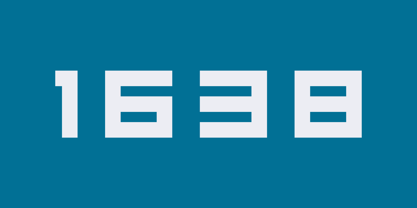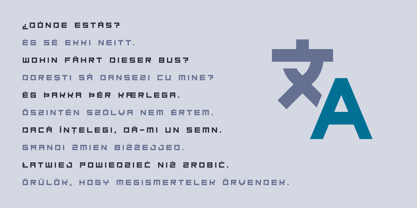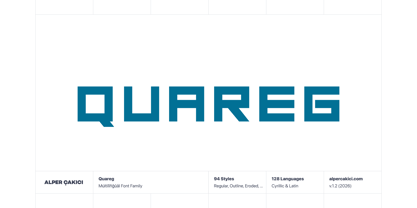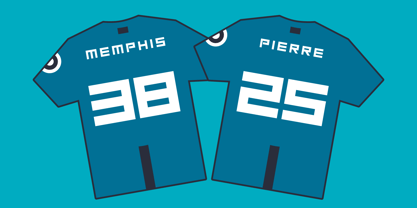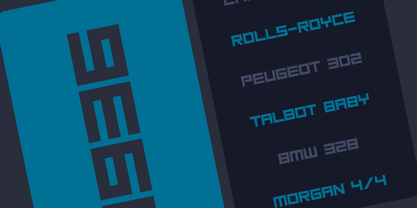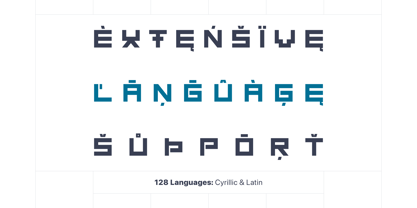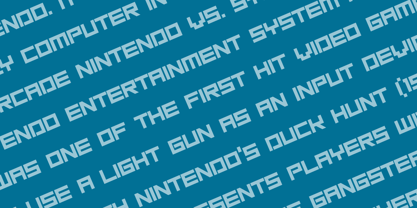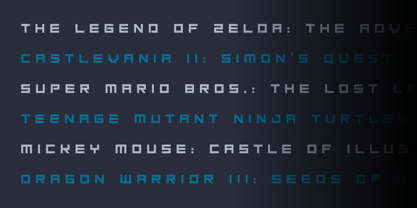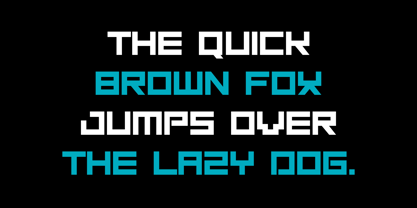
Quareg
by AlperCakici
The Quareg Font Family was designed by Alper Çakıcı and published by AlperCakici. Quareg contains 94 styles and family package options. More about this family
Quareg is a bold square block typeface designed for impact and versatility. Built with strong geometric structure and a confident presence, it delivers a modern industrial tone while remaining highly adaptable. Supporting both Cyrillic and Latin scripts, Quareg is crafted for multilingual projects that demand clarity and character. With an extensive family of 94 styles, Quareg explores a wide range of expressive textures—from clean and regular cuts to aged, rough, grainy, chalk, brush, and sketch-inspired variations. Its circular and rounded subfamilies soften the rigid structure, offering flexibility between sharp technical precision and approachable forms. Perfect for branding, posters, packaging, headlines, gaming, and editorial design, Quareg performs equally well in bold statements and creative compositions. Whether you’re aiming for a rugged, worn aesthetic or a clean, structured look, Quareg provides a complete toolkit for distinctive typography.
Designers: Alper Çakıcı
Foundry: AlperCakici